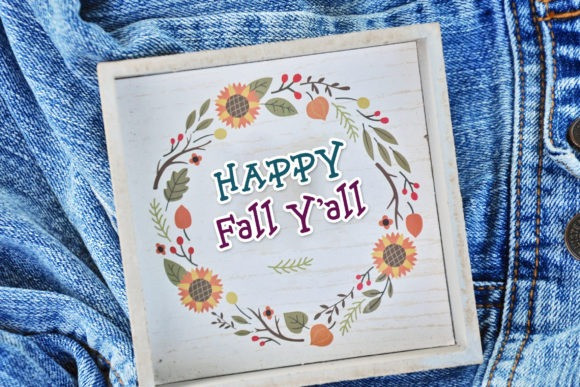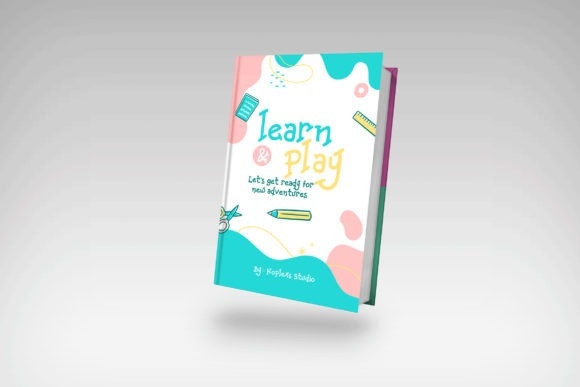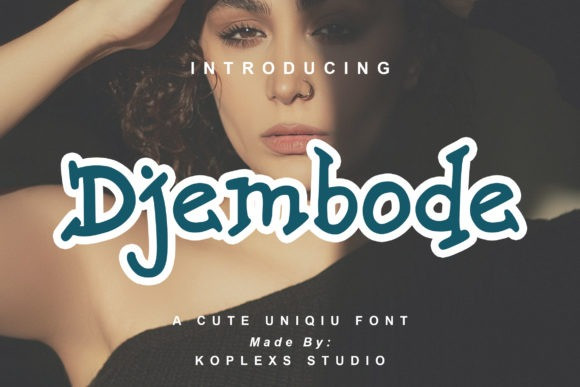
Djembode Font
Djembode Display Font is a cute and unique display font. Whimsical and a bit quirky, this font will brighten up each of your designs. Add it confidently to your projects, and you will love the results.